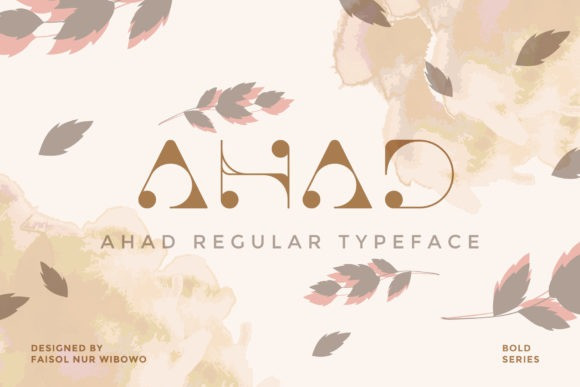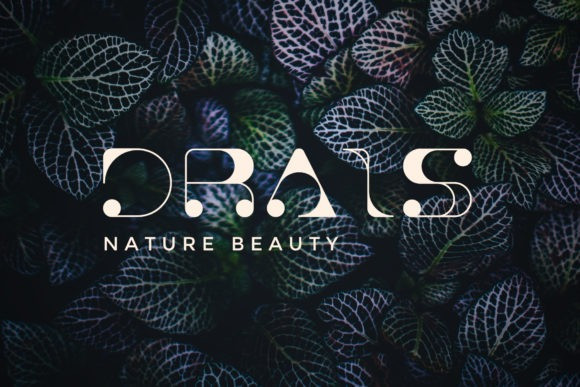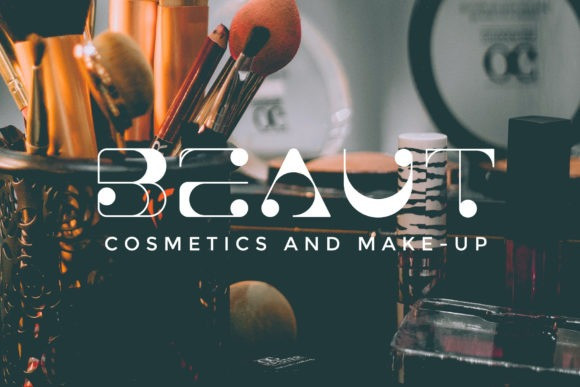
Ahad Font
Ahad is a whimsical and uniquely designed display font. This font is ideal for writing web designs, business cards, or pretty much anything else that requires a cool, modern touch.